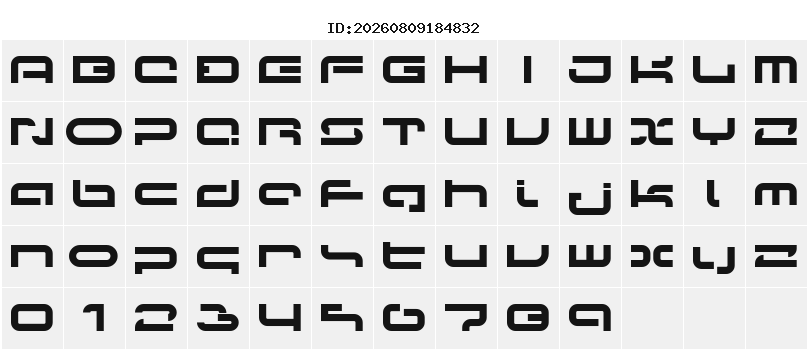
• Font Name: Papicon
Papicon.ttf is a modern, elegant sans-serif font designed for ultimate readability and visual harmony. Perfect for branding, headlines, web design, and print materials.